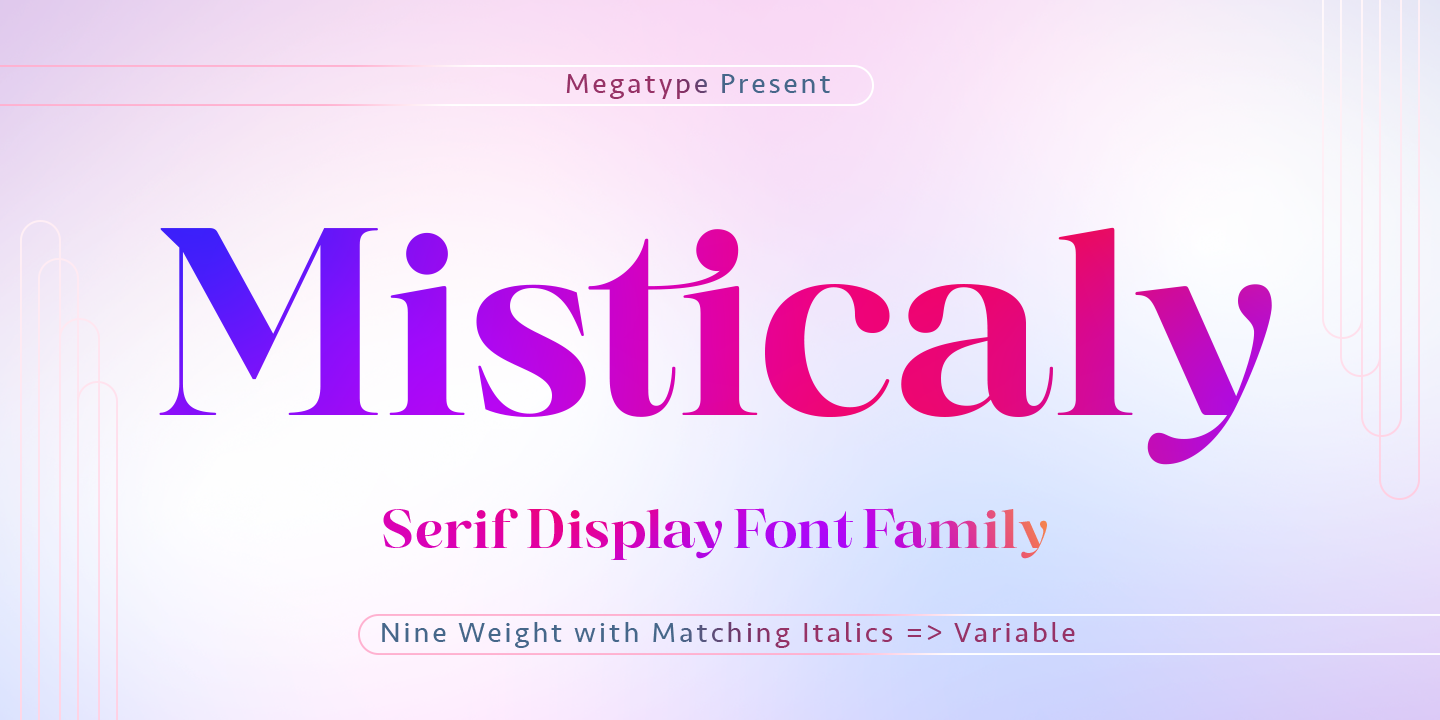
Misticaly Font is ideal for fantasy book covers, magical gaming interfaces, spiritual wellness branding, mystical jewelry packaging, esoteric art galleries, tarot card designs, witchcraft supply stores, supernatural movie posters, enchanted forest themes, and otherworldly meditation materials.
What makes Misticaly Font exciting is its enchanting mystique and supernatural allure that instantly transports viewers into realms of magic and wonder. This captivating typeface embodies the essence of ancient mysteries with its ethereal character forms and otherworldly styling that evokes moonlit forests, crystal balls, and whispered incantations. The font's mystical character creates an immediate connection to the unseen world and spiritual dimensions beyond ordinary reality.
Misticaly Font family includes regular weight with mysteriously crafted character designs featuring magical flourishes and supernatural proportions. The typeface maintains excellent readability while preserving its unique mystical personality through carefully enchanted letterforms that seem to shimmer with otherworldly energy like ancient runes carved by forgotten civilizations.
Creative professionals choose Misticaly Font Free Download for projects requiring authentic mystical atmosphere and supernatural appeal. This remarkable typeface brings the magic of ancient wisdom to modern communications, combining esoteric aesthetics with contemporary functionality to create spellbinding brand experiences. The thoughtfully designed characters ensure mesmerizing visual impact across all applications, making it essential for spiritual businesses, fantasy entertainment companies, and any organization seeking to communicate the mysterious power and transformative magic found in mystical traditions and supernatural realms where anything becomes possible.